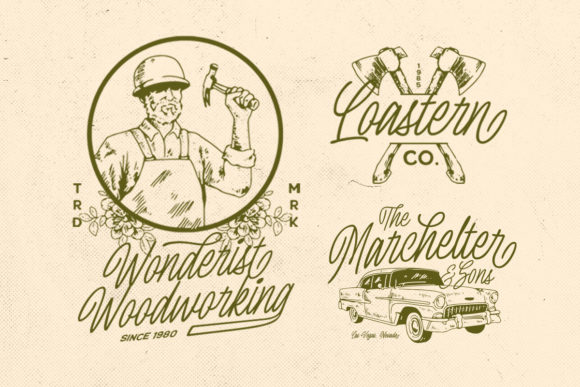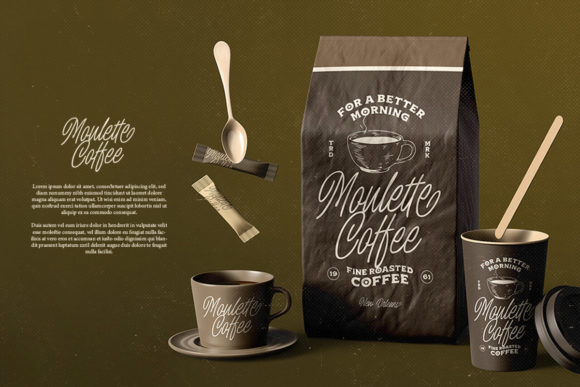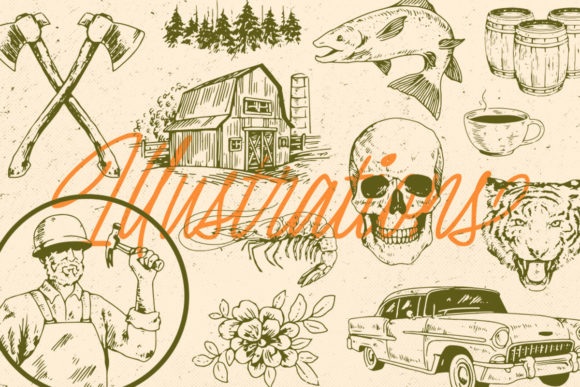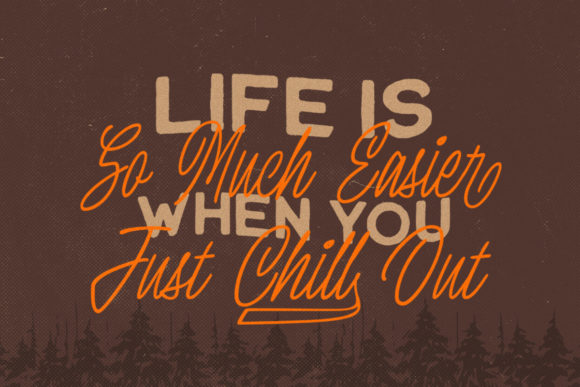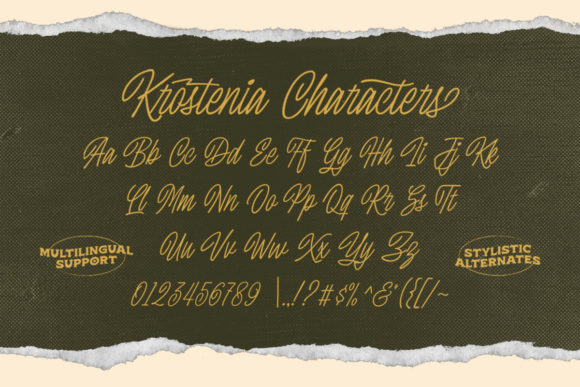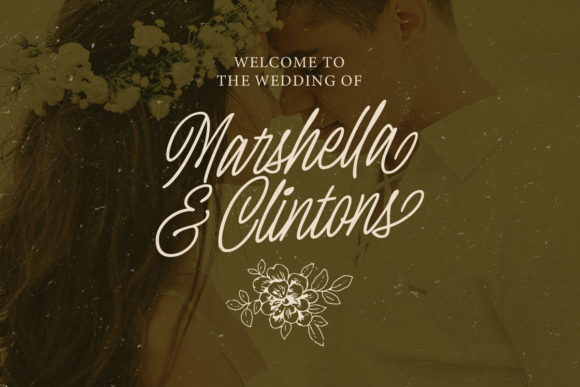
Introduction to Krostenia Font
Have you ever been working on a creative project, pouring your heart and soul into it, only to feel like something’s missing? That’s where the perfect design resource can make all the difference. For many designers, finding that elusive font that elevates their work to the next level can be a game-changer.
Enter the Krostenia Font, a vintage styled, thin lettered and delicate script font that’s sure to capture your imagination. With its incredibly versatility, this font fits a wide pool of designs, from elegant wedding invitations to modern web headers. And the best part? It’s available for a free download, making it an invaluable asset for any creative project.
Whether you’re a seasoned pro or just starting out, the Krostenia Font is a high quality design resource that’s sure to bring your ideas to life with its transparent background and delicate touch.
Key Features of Krostenia Font
- Unique, artistic design with a transparent background, ideal for creative projects
- High-resolution font with precise details, suitable for print and digital applications
- Includes a wide range of characters, including Latin, Cyrillic, and Greek alphabets, making it a versatile design option
- Perfect for creative projects, such as graphic design, digital art, and typography-based art
Honest Review: Krostenia Font
I recently had the chance to work with the Krostenia Font, and I must say it’s a great addition to my design resource collection. ✨ The font’s sleek and modern design makes it perfect for any creative project that requires a touch of sophistication.
- Transparent background: The font’s transparent background makes it easy to use as a design element in various creative projects.
- High quality: The font’s high quality is evident in its crisp and clear lines, making it perfect for both digital and print designs.
However, I did encounter some limitations while working with the Krostenia Font. ⚠️ The font’s font size can become a bit too large when used in small text, which can make it difficult to read.
Overall, I’m impressed with the Krostenia Font and would recommend it to designers looking for a high-quality, modern font for their creative projects. With a few tweaks to the font size, it can be a valuable addition to any design resource collection.
Tips for Getting the Most Out of Krostenia Font
To get the most out of Krostenia Font, experiment with different font styles and combinations. You can also use the font in conjunction with other design elements, such as images and graphics, to create a unique and eye-catching design.
Krostenia Font is commonly used in graphic design, digital art, and creative projects. It’s also ideal for use in presentations, brochures, and other marketing materials where a high-quality font is required.